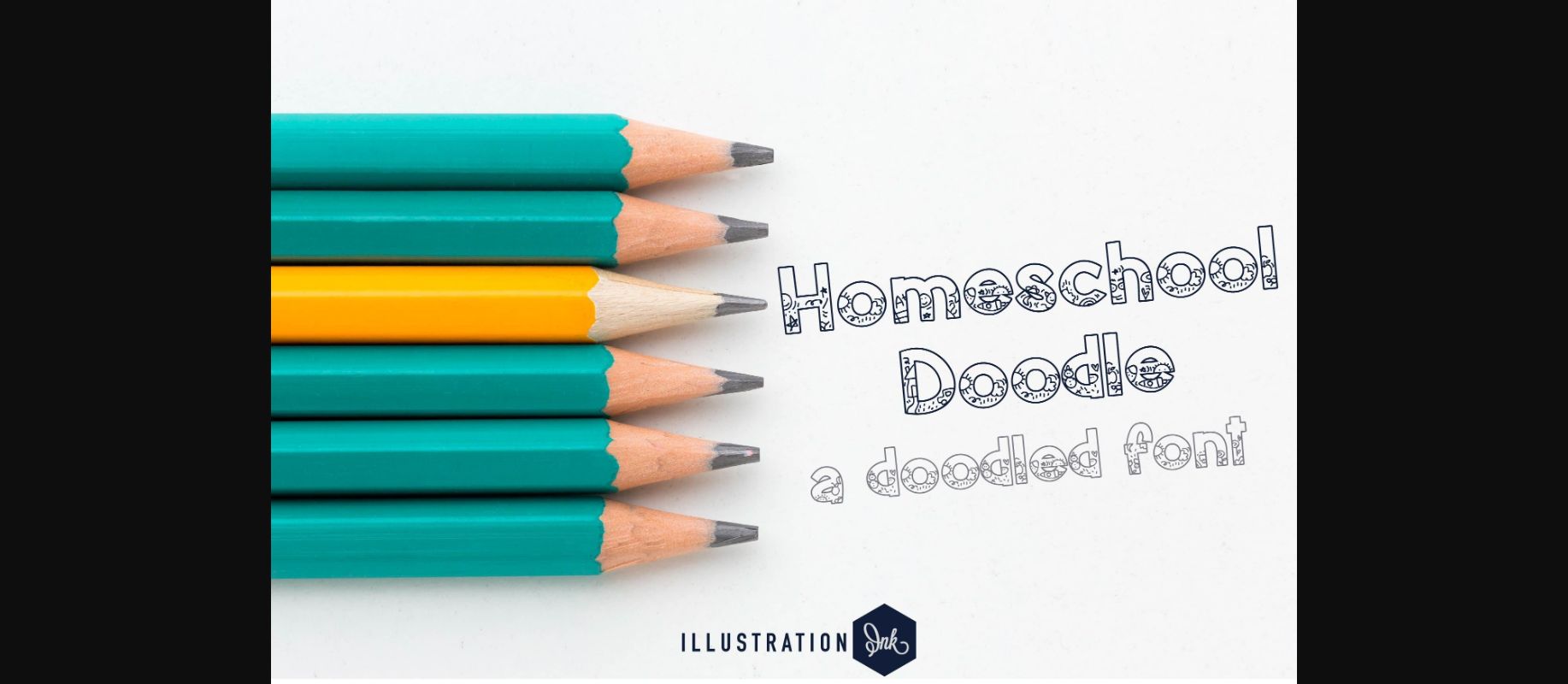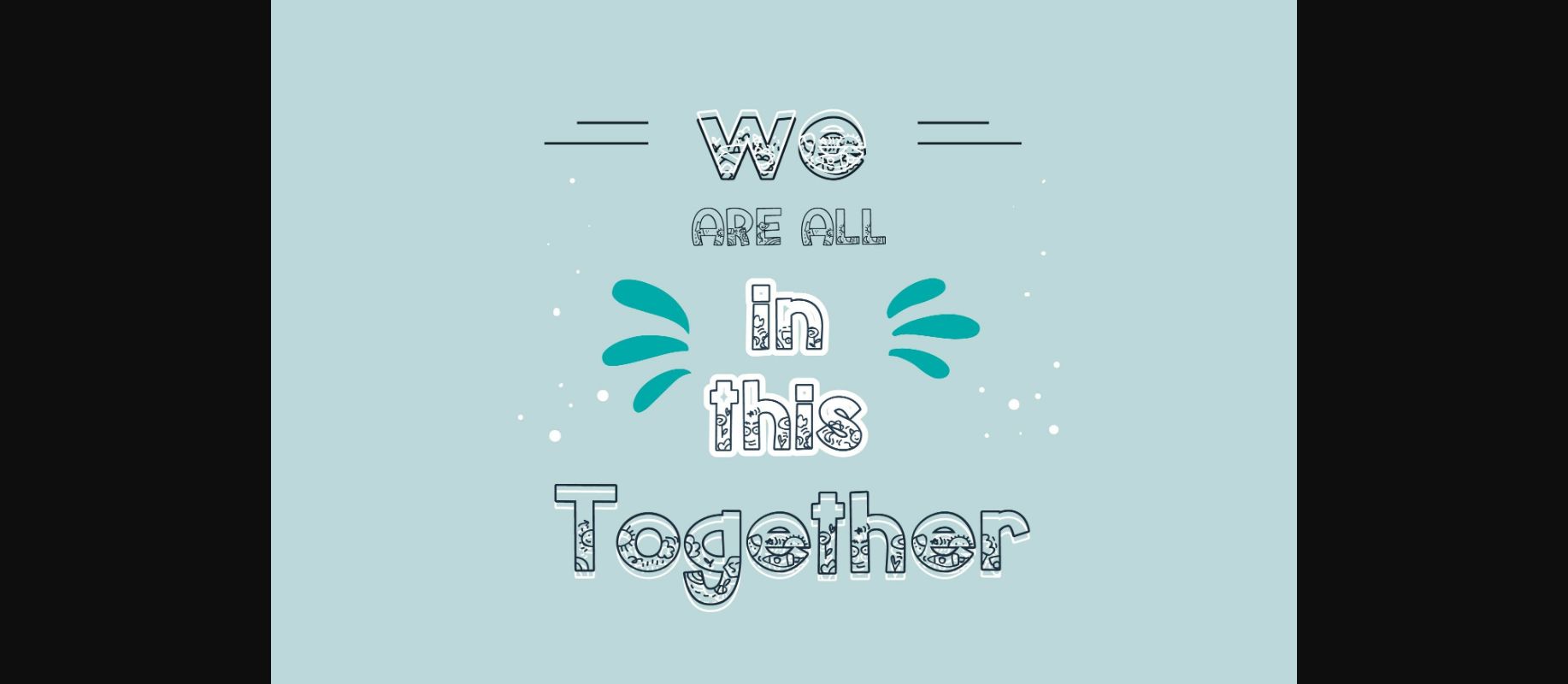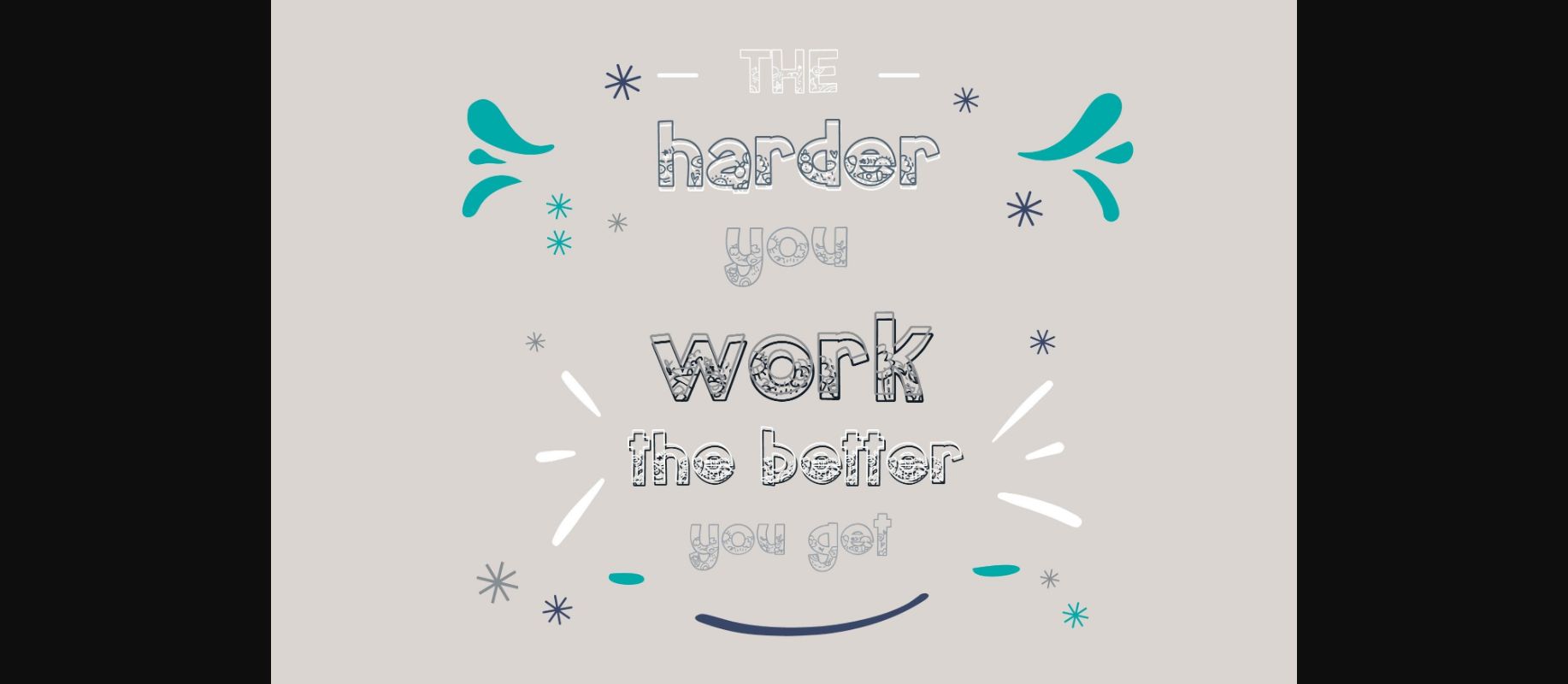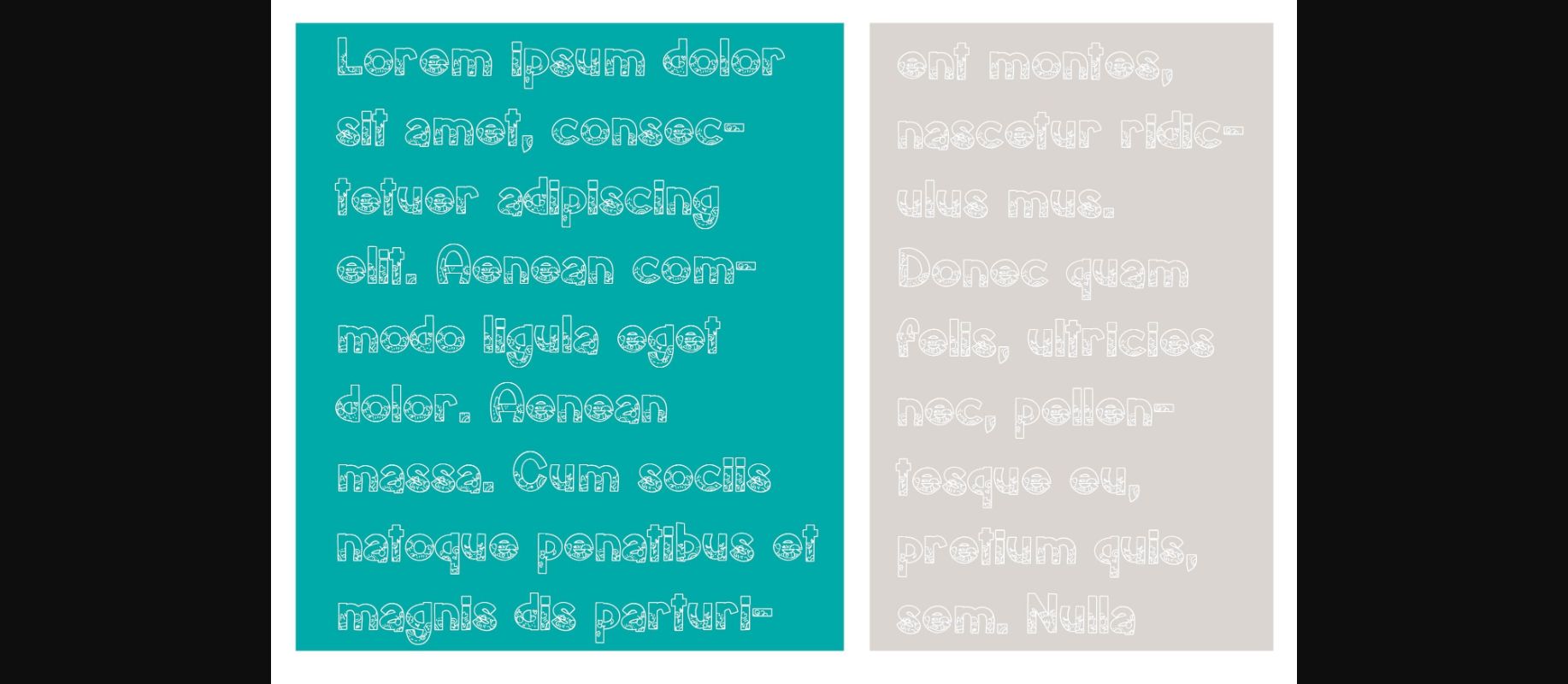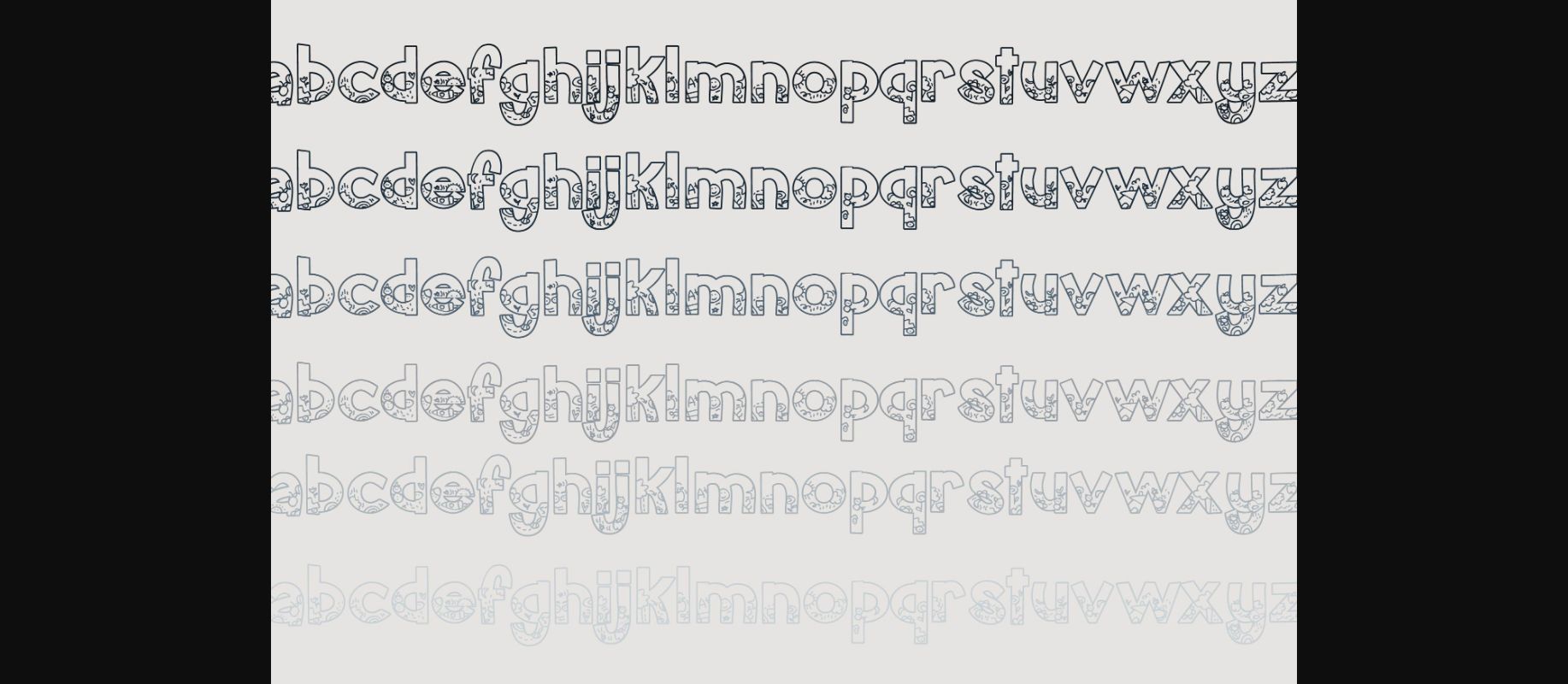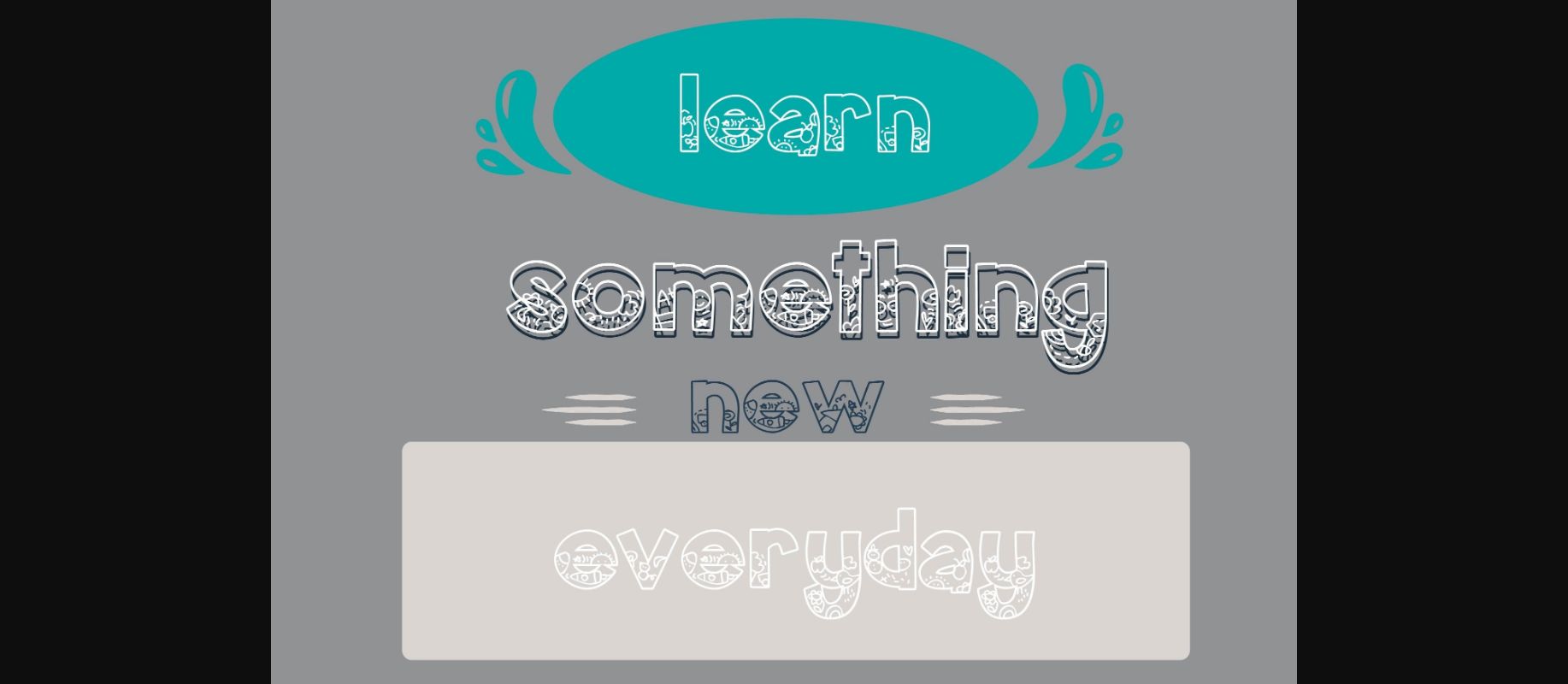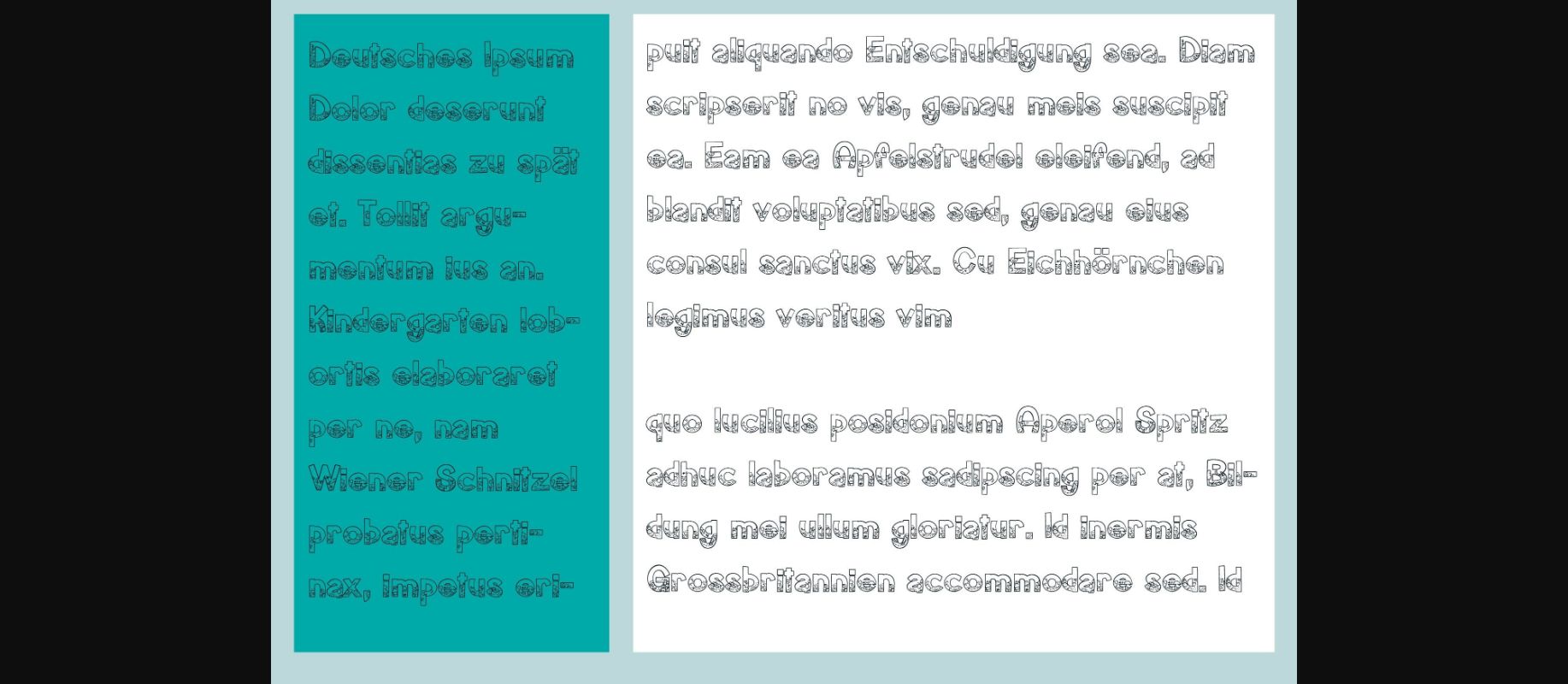
HomeDecorative FontsHomeschool Doodle Font Decorative Fonts Homeschool Doodle Font FacebookXPinterestWhatsApp 1 of 9 ... Homeschool Doodle Font Poster 2... Homeschool Doodle Font Poster 3... Homeschool Doodle Font Poster 4... Homeschool Doodle Font Poster 5... Homeschool Doodle Font Poster 6... Homeschool Doodle Font Poster 7... Homeschool Doodle Font Poster 8... Homeschool Doodle Font Poster 9... About Homeschool Doodle Font Homeschool Doodle is a fun hand-crafted sans serif decorative font. This is a simple typeface with a bit of a crafty look and filled with childish doodles. DOWNLOAD NOW People also explored Deliciouxe Font Rezojas Font Sethidy Font Bampton Font Pinky Font King Font Taylor Gothic Font Milyone Font Pumpkin Crafty Font 290 0 TagsHomeschool Doodle Font Previous articleAutumn FontNext articleMusic Class Font LEAVE A REPLY Cancel reply Comment: Please enter your comment! Name:* Please enter your name here Email:* You have entered an incorrect email address! Please enter your email address here Website: Save my name, email, and website in this browser for the next time I comment. Personal Use Free Jabirah Personal Use Free Read more about this font Joystix Monospace Personal Use Free Read more about this font Eits Personal Use Free Read more about this font Airmole Personal Use Free Read more about this font BLOG How to Cut Any Font on Cricut: Convert a Font to SVG (Free) Turn any font into a clean SVG so it cuts crisp on Cricut - a quick 3-step workflow using a free font-to-SVG tool. The 10 Best Handwriting Fonts to Add Personality to Your Designs Where to Buy American Fonts Online in 2024 Free vs Paid Fonts: Why Investing in Premium Fonts Is Worth It